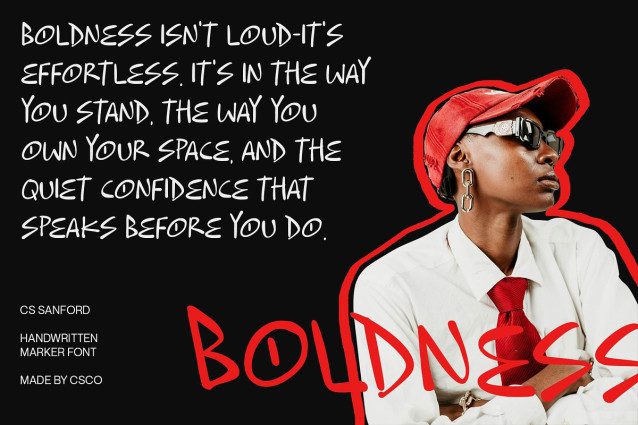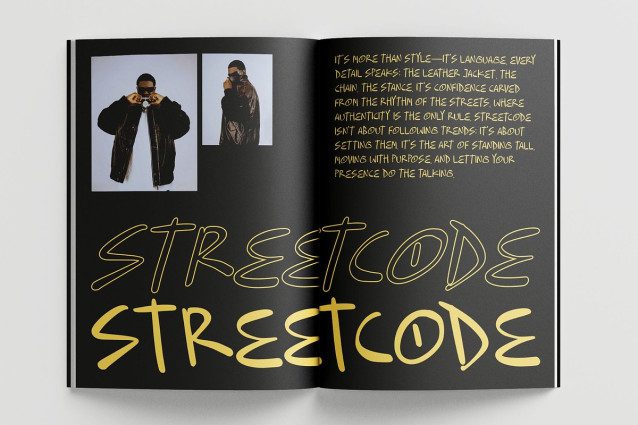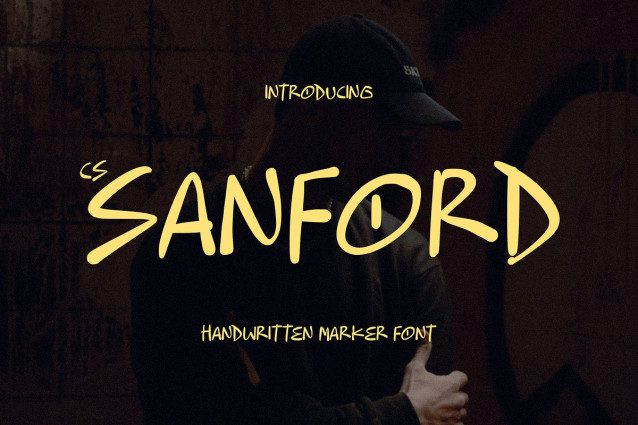
CS Sanford Font
CS Sanford Font – Ink Handwritten Font with Marker Texture and Quirky Look Expressive Handwritten Style with Ink Personality This is a playful and expressive ink handwritten font with sans serif style that captures the effortless beauty of natural pen strokes and can also include texture markers. Its smooth flow and irregular details bring authenticity and warmth to every word, creating a connection that feels both personal and genuine.
Natural Flow with Modern Simplicity Blending the spontaneous movement of ink with a modern handwritten style, this font delivers an easygoing yet stylish appearance. The gentle curves and natural rhythm of each letter make it ideal for projects that need a relaxed, approachable touch such as quotes, journals, or lifestyle branding.
Warm, Authentic, and Full of Character Every stroke in this font tells a story. Its organic texture and hand-drawn charm make designs feel intimate and relatable. Whether used for personal logos, social media graphics, or creative invitations, this font adds a sense of sincerity and artistry that enhances your message.
Perfect Balance of Creativity and Versatility From branding and stationery to editorials and digital designs, this font adapts beautifully to both casual and professional applications. Its combination of expressive form and natural ink texture makes it a go-to font for designers seeking warmth, creativity, and modern flair.